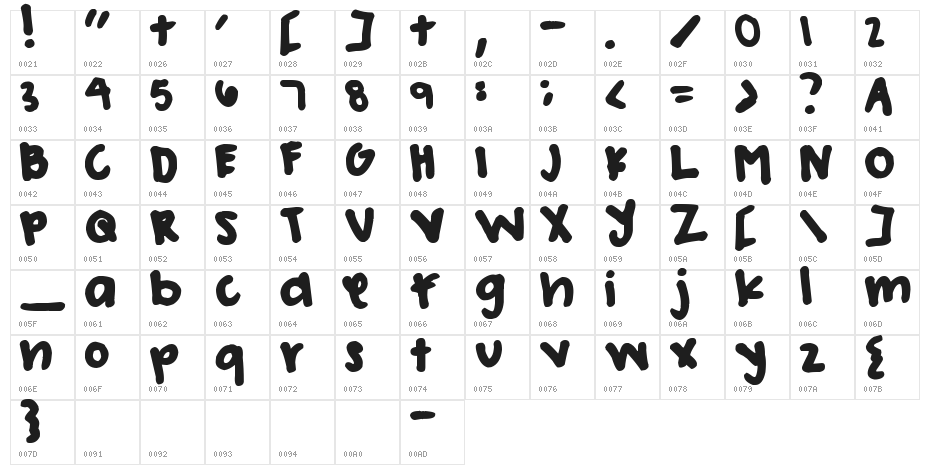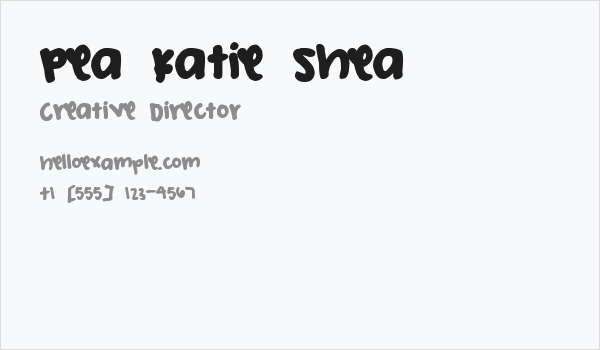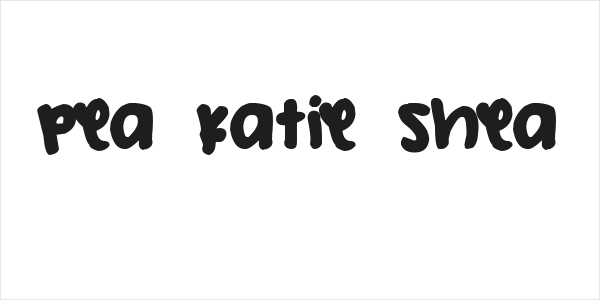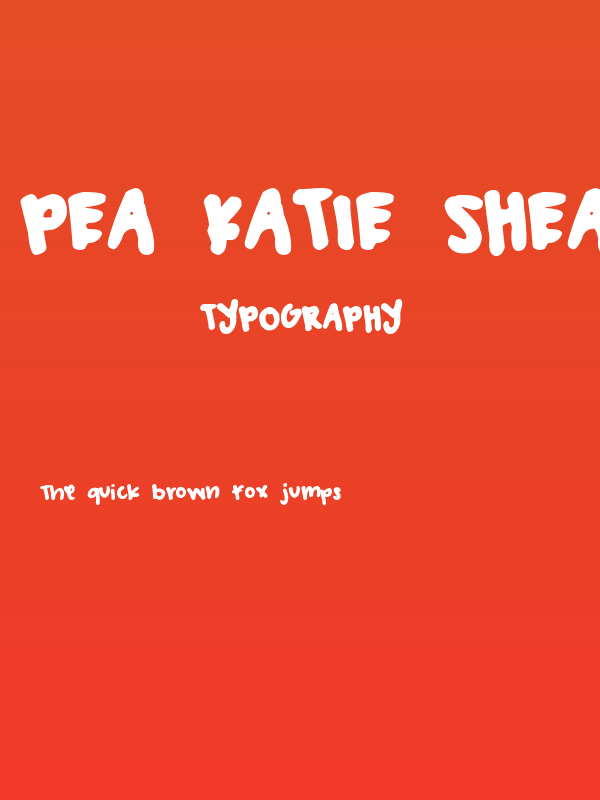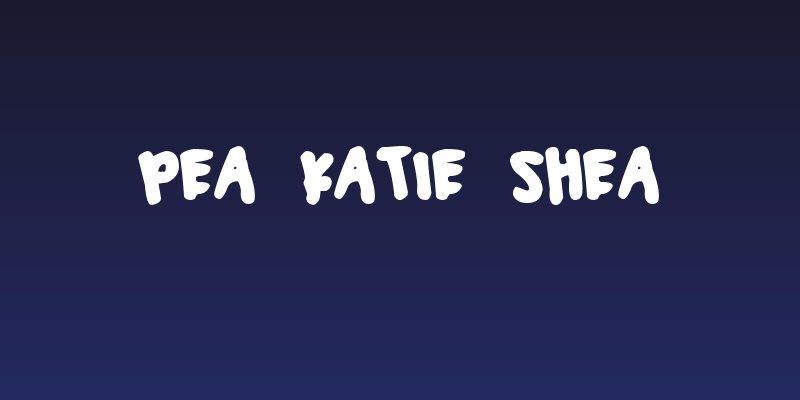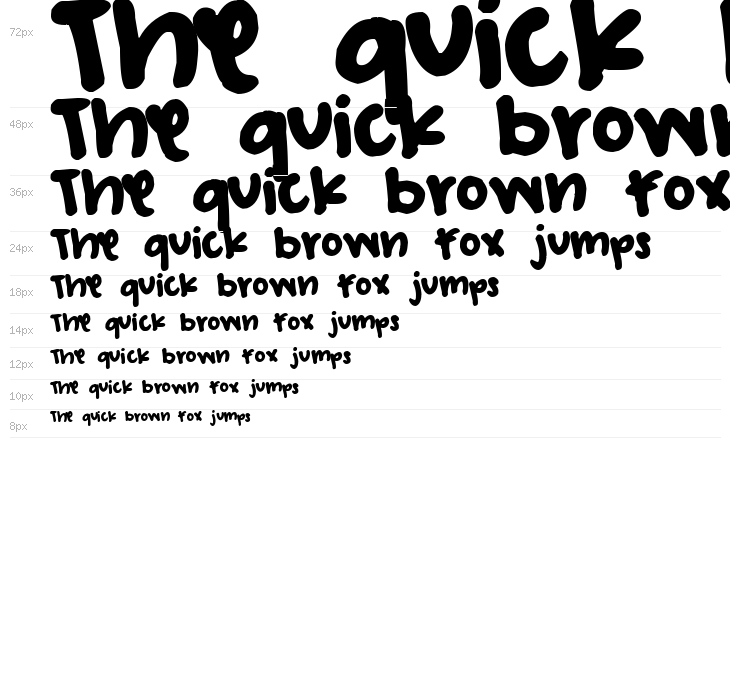
Pea Katie Shea Font
Pea Katie Shea Description
This playful and bold handwritten font exudes a casual and friendly vibe, characterized by its thick, rounded strokes and slightly irregular letterforms. The letters are closely spaced, giving it a compact appearance, while maintaining legibility. The uppercase and lowercase letters share a consistent style, with a whimsical touch that adds personality to each character. The numbers and special characters follow the same design principles, ensuring a cohesive look across all glyphs. This font is ideal for projects that require a personal, informal touch, such as greeting cards, children's books, or playful branding materials.
Overall StylePlayful, Casual
Use CaseHeadlines, Logos, Informal Text
Proposed ProjectsGreeting cards, children's books, playful branding materials, informal invitations.